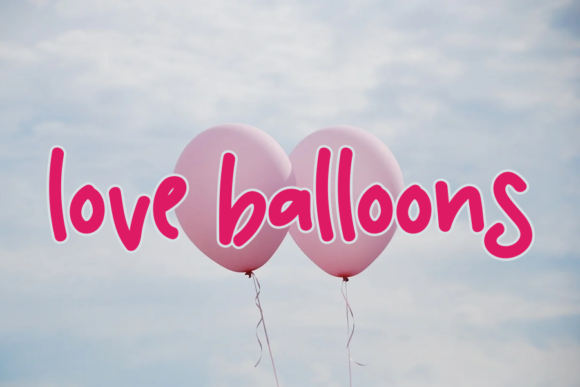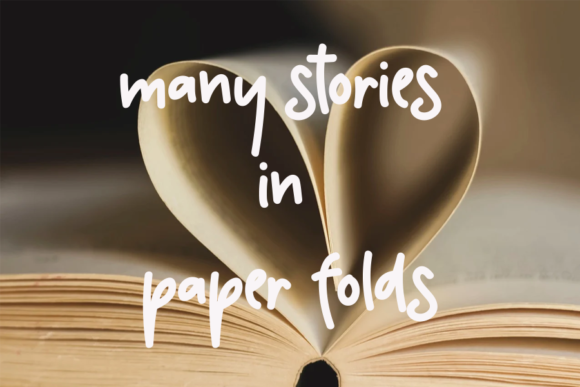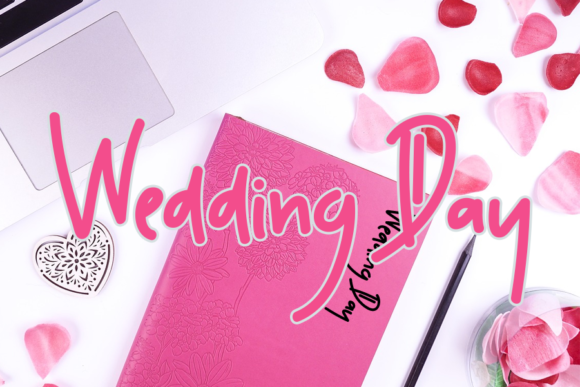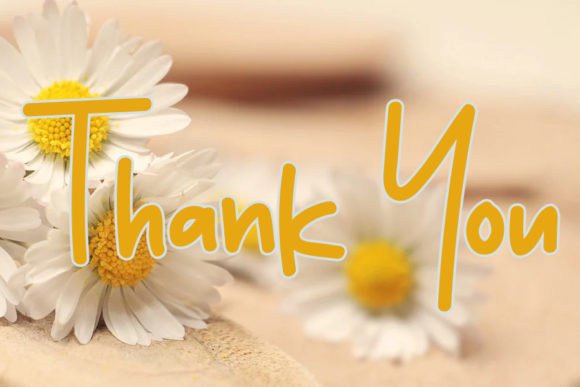
Introduction to Love Day Font
Have you ever been brainstorming a creative project, pouring your heart into every detail, only to realize that the perfect font is missing? For many designers, this is a familiar feeling. But what if I told you that I’ve discovered the perfect solution? Enter the delightful Love Day Font, a sweet and quirky handwritten font that adds a touch of romance and whimsy to any design.
This charming font is a must-have for designers looking to add a personalized touch to their projects. Whether you’re working on a wedding invitation, a card, or any other creative endeavor, the Love Day Font is sure to make it stand out. With its dainty and joyful feel, this font is a high-quality design resource that will elevate your work to the next level.
Key Features of Love Day Font
- High-quality design: The Love Day Font is a beautiful and elegant font, perfect for any creative project.
- Resolution-independent: With a resolution-independent design, the Love Day Font looks stunning at any resolution, from low to high DPI.
- Perfect for romantic projects: This font is specifically designed for love-themed projects, weddings, Valentine’s Day, and other romantic celebrations.
Honest Review: Love Day Font
As a designer, I’m always on the lookout for high-quality design resources to elevate my creative projects. Recently, I had the chance to work with the Love Day Font, and I’m excited to share my honest review with you.
- Cute and playful design: The Love Day Font is perfect for adding a touch of whimsy to your designs.
- High quality: The font is well-crafted and looks great on a transparent background.
- Limited customization options: The font is relatively straightforward and lacks advanced customization features.
- Not ideal for formal projects: The Love Day Font is best suited for casual or creative projects, and may not be suitable for formal or professional designs.
Overall, I think the Love Day Font is a great design resource for designers who want to add a touch of playfulness to their projects. While it may not offer advanced customization options, it’s a high-quality font that’s perfect for creative projects.
Tips for Getting the Most Out of Love Day Font
Use the font with a transparent background to create a beautiful and elegant design. Experiment with different font sizes and colors to achieve a high-quality look.
Love Day Font is perfect for Valentine’s Day cards, wedding invitations, and other romantic designs. You can also use it for birthdays, anniversaries, and other special occasions.